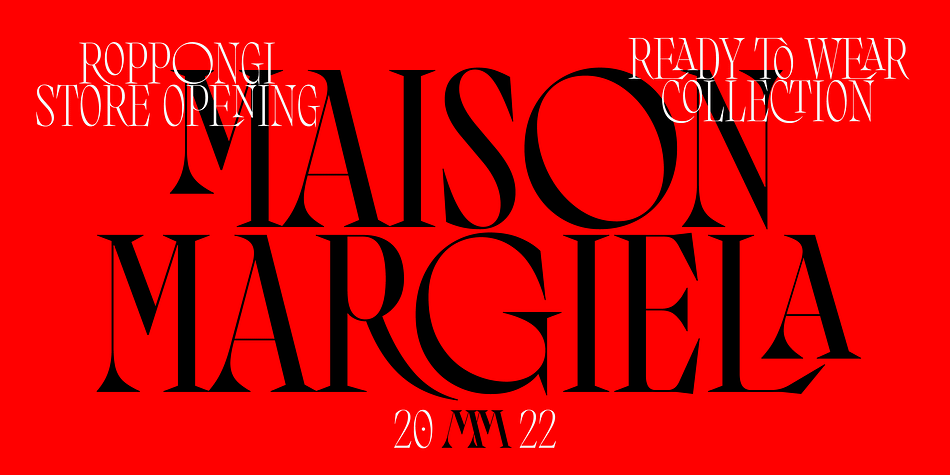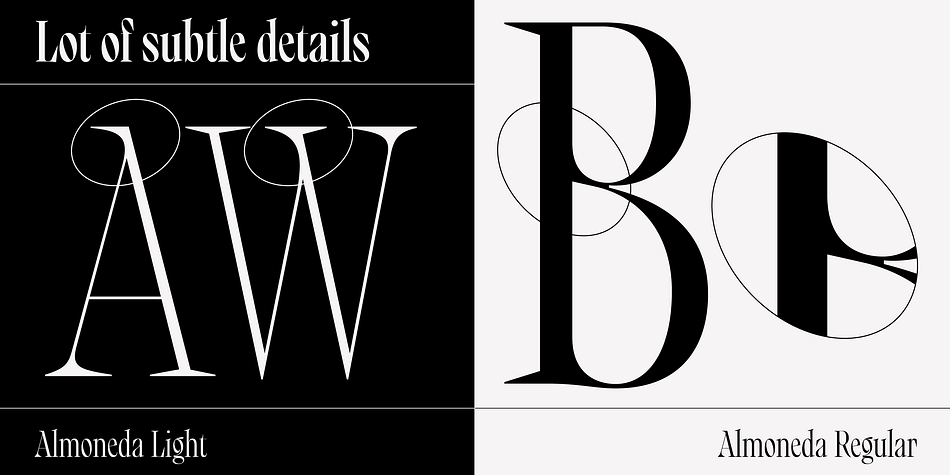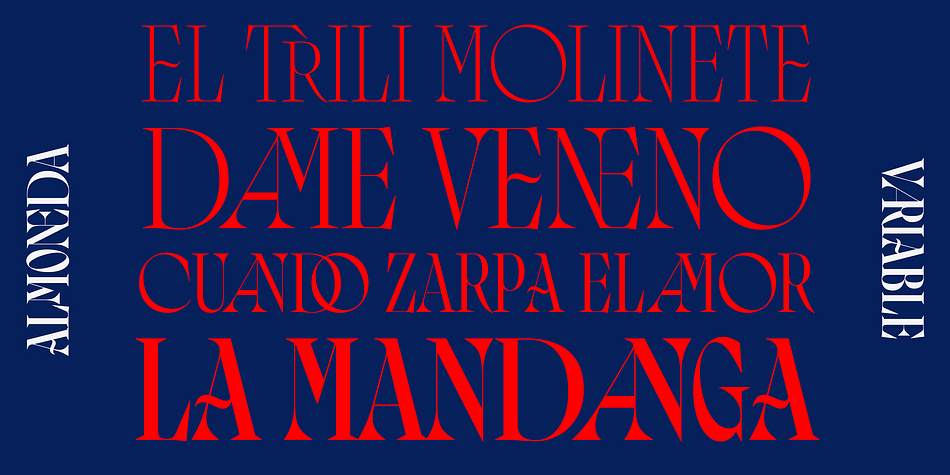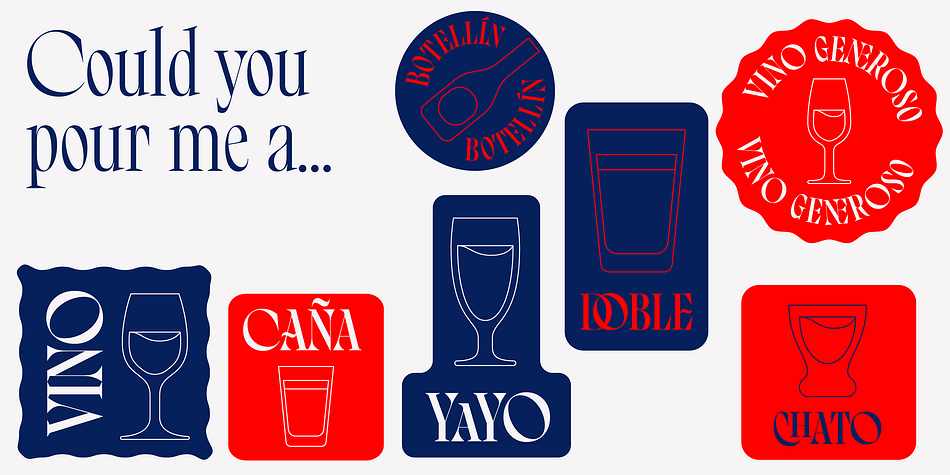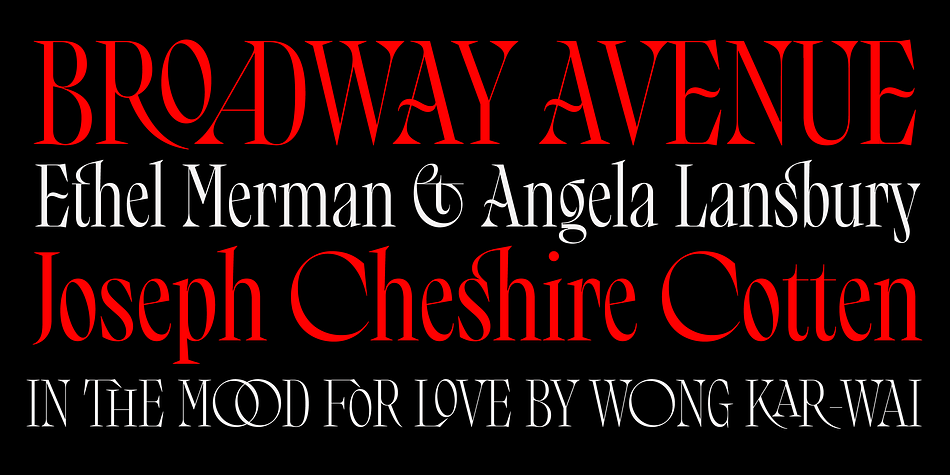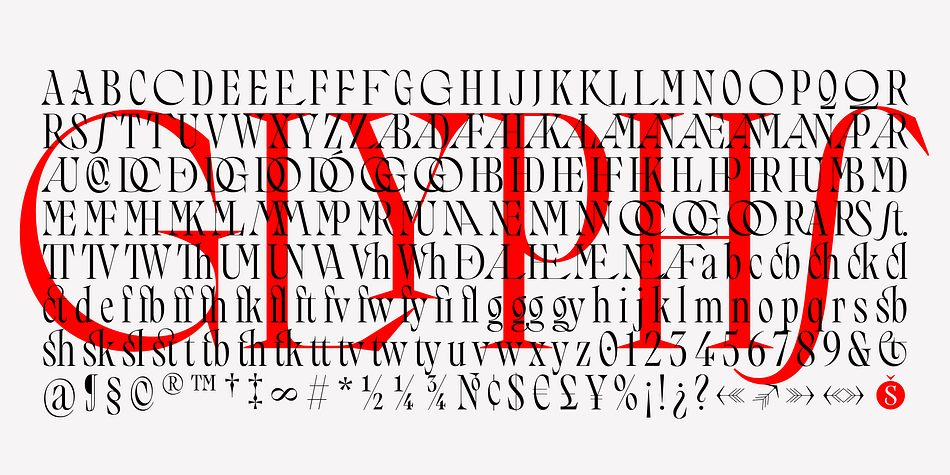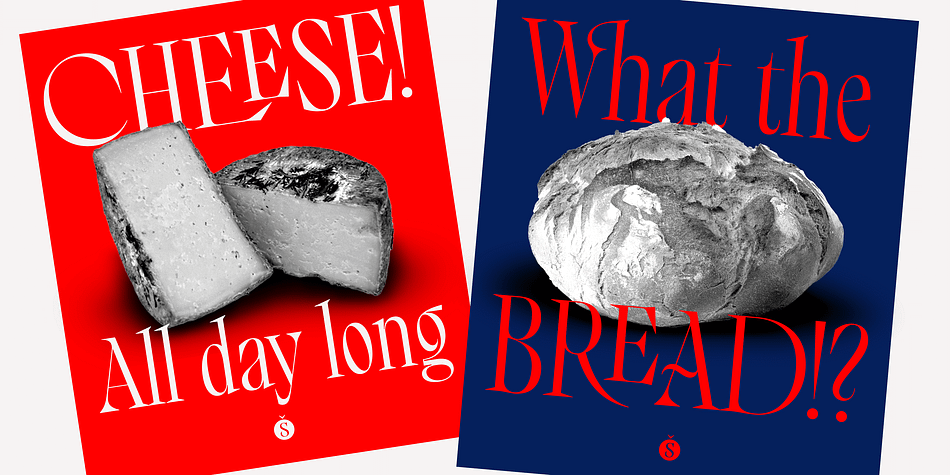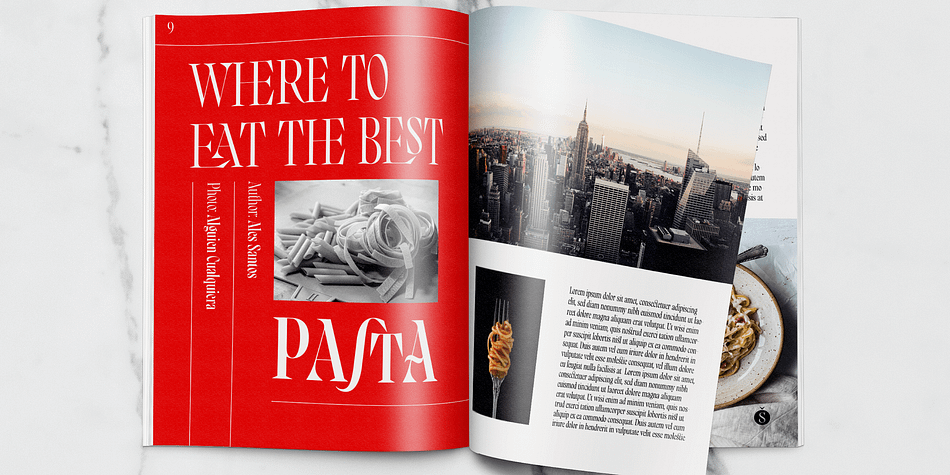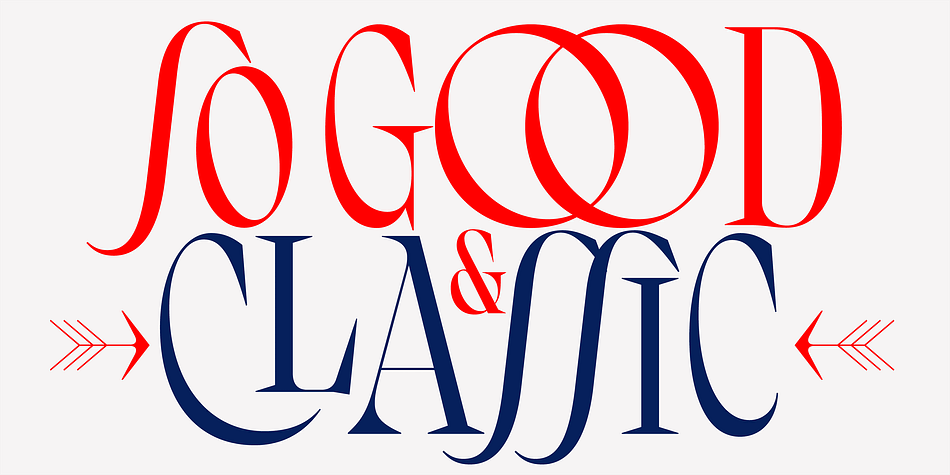
Almoneda
Designed by Ales Santos, Almoneda is a display serif and serif font family. This typeface has four styles and was published by Sudtipos.
Almoneda: Sale at public auction of movable goods, generally used. And also: private and voluntary sale of jewelry and junk that is made without the intervention of justice. Formerly, it was nothing more than the market or sale of things and spoils won from the enemy in war.
Nowadays, the almoneda is practically associated with spaces where the sale of “old things” takes place and, in Madrid, they are usually concentrated in the area of El Rastro, an open-air market that is set up on Sundays and some holidays in the center of Madrid. There, you can find everything and, if you walk around a lot and look hard enough, great typographic finds. It is there where I find a large number of elements (usually from the late nineteenth and early twentieth century) such as boxes, posters, books, etc.. in which appear uppercase letters with a variety of shapes, letters embedded, rare ligatures ... In addition, many elements extracted from street signs, tiles from bars and commemorative elements of Madrid have been used to complete this font design made with care and patience.
Thus was born Almoneda, a modern typeface with a marked axis and great contrast, and an uppercase with several sets of characters to play with and enjoy. It also includes a large number of ligatures and discretionary ligatures.
Almoneda, a typeface that will not leave you indifferent. They take it out of my hands, hey!